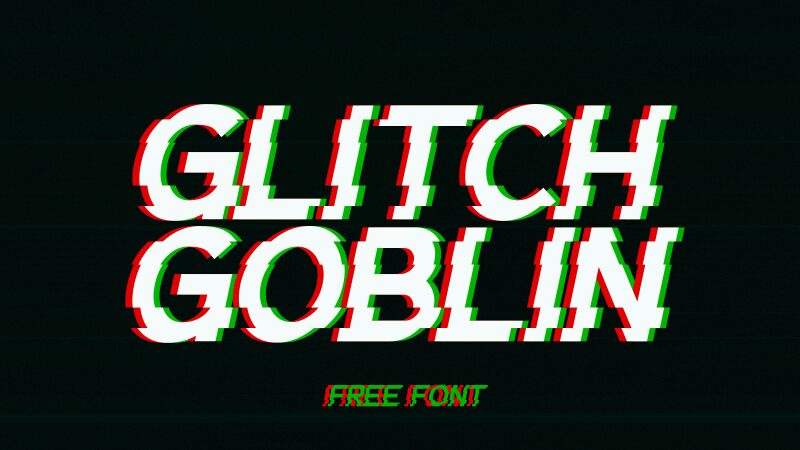
Meet Glitch Goblin, the edgy and playful display font designed by GGBotNet. With its unique distorted style and semi-light weight, this font is perfect for projects that need a touch of mischief and quirkiness. Use it for your gaming website or app, your punk rock album cover, or even your Halloween party invitations. Glitch Goblin will add a touch of fun and rebellion to any project you have in mind. Its irregular shapes and distorted lines will make sure your message stands out from the crowd. Dare to be different with Glitch Goblin!
Glitch Goblin